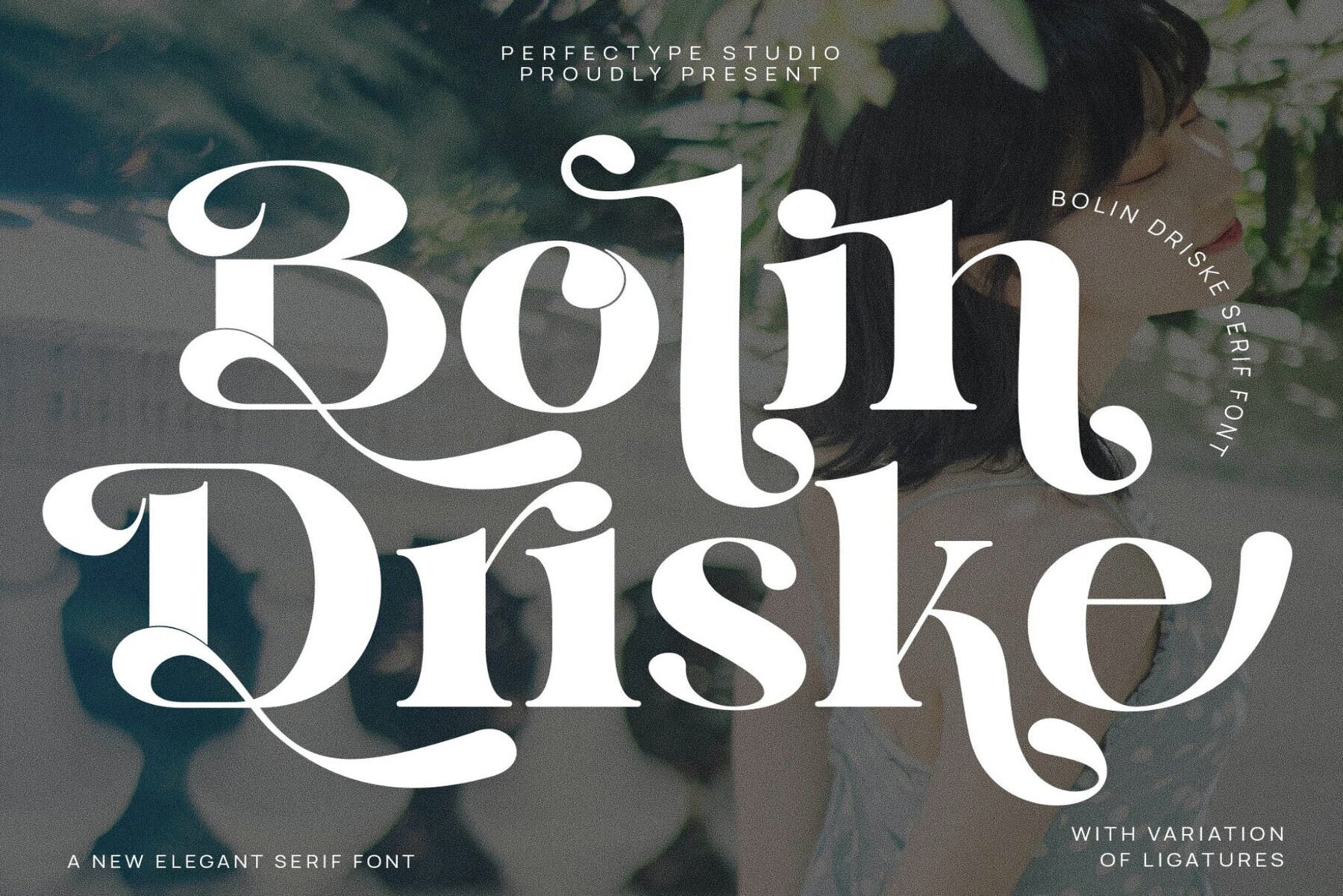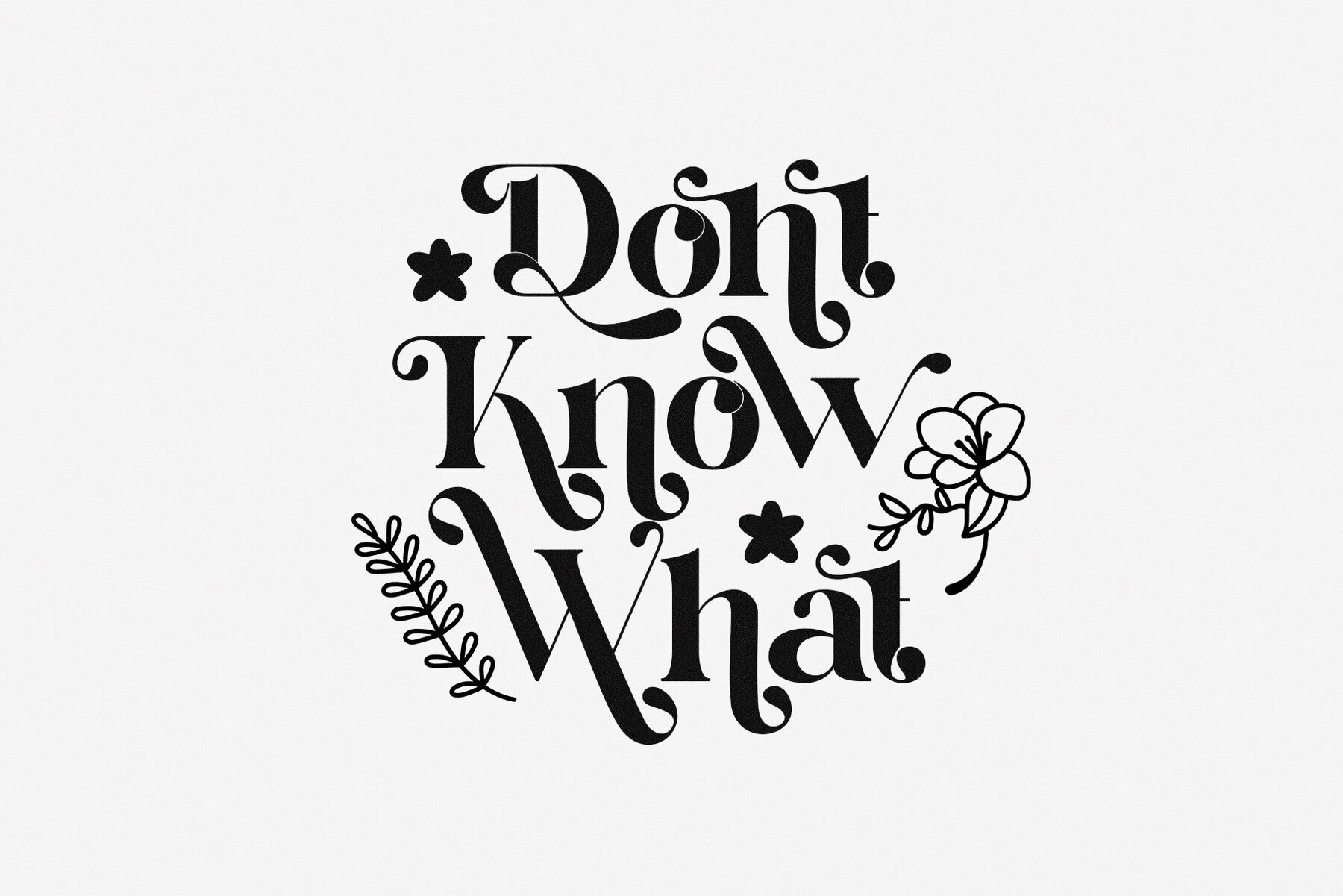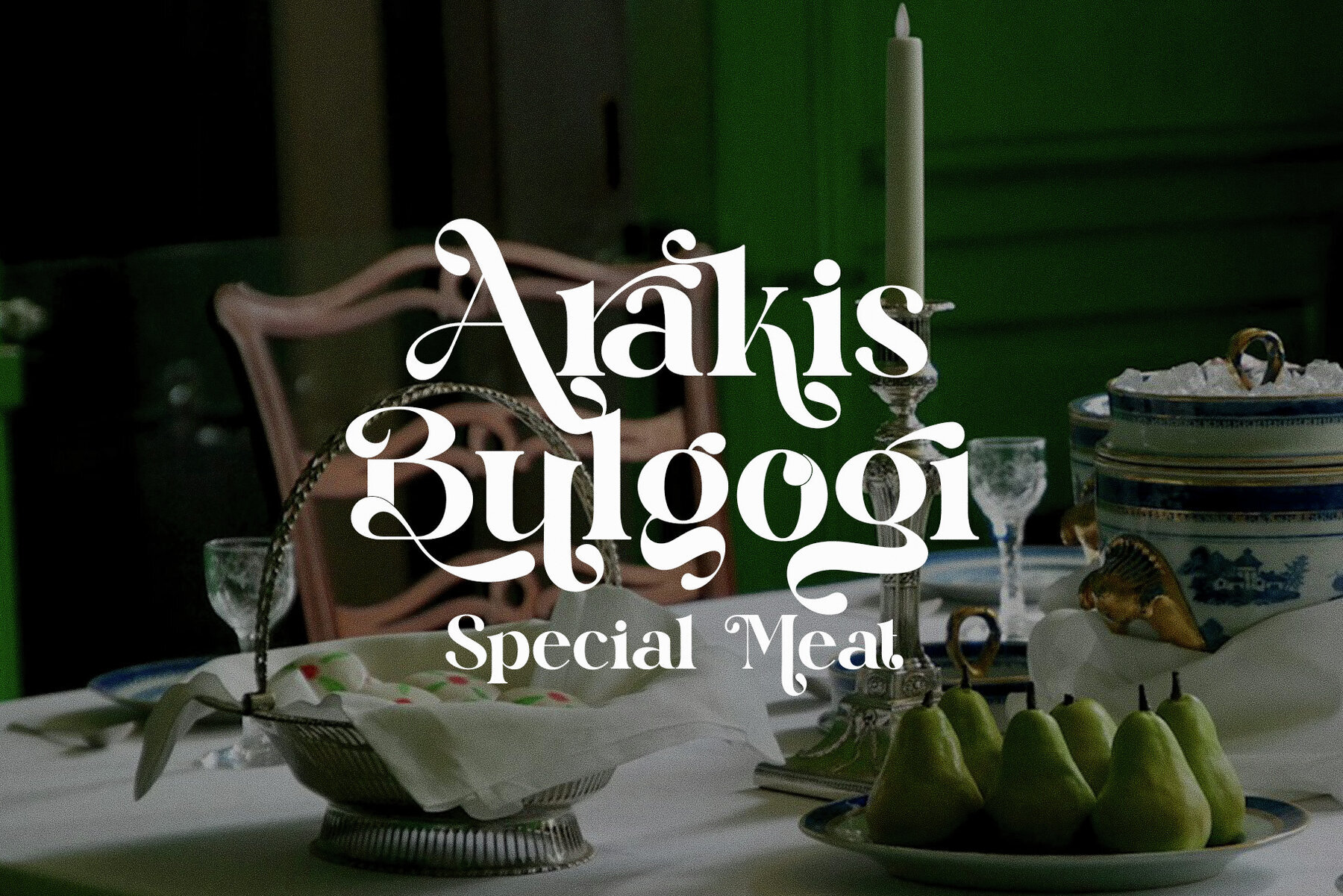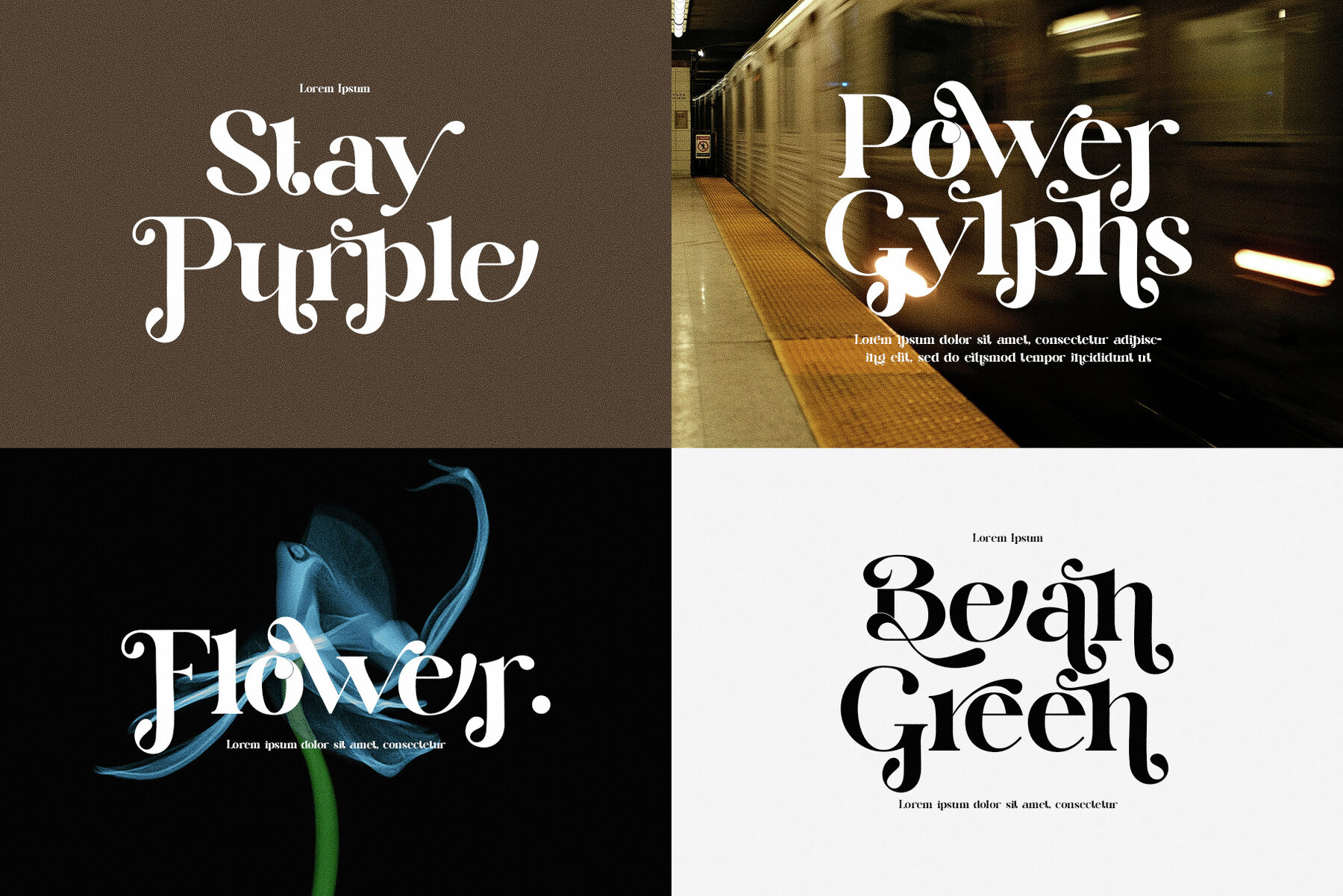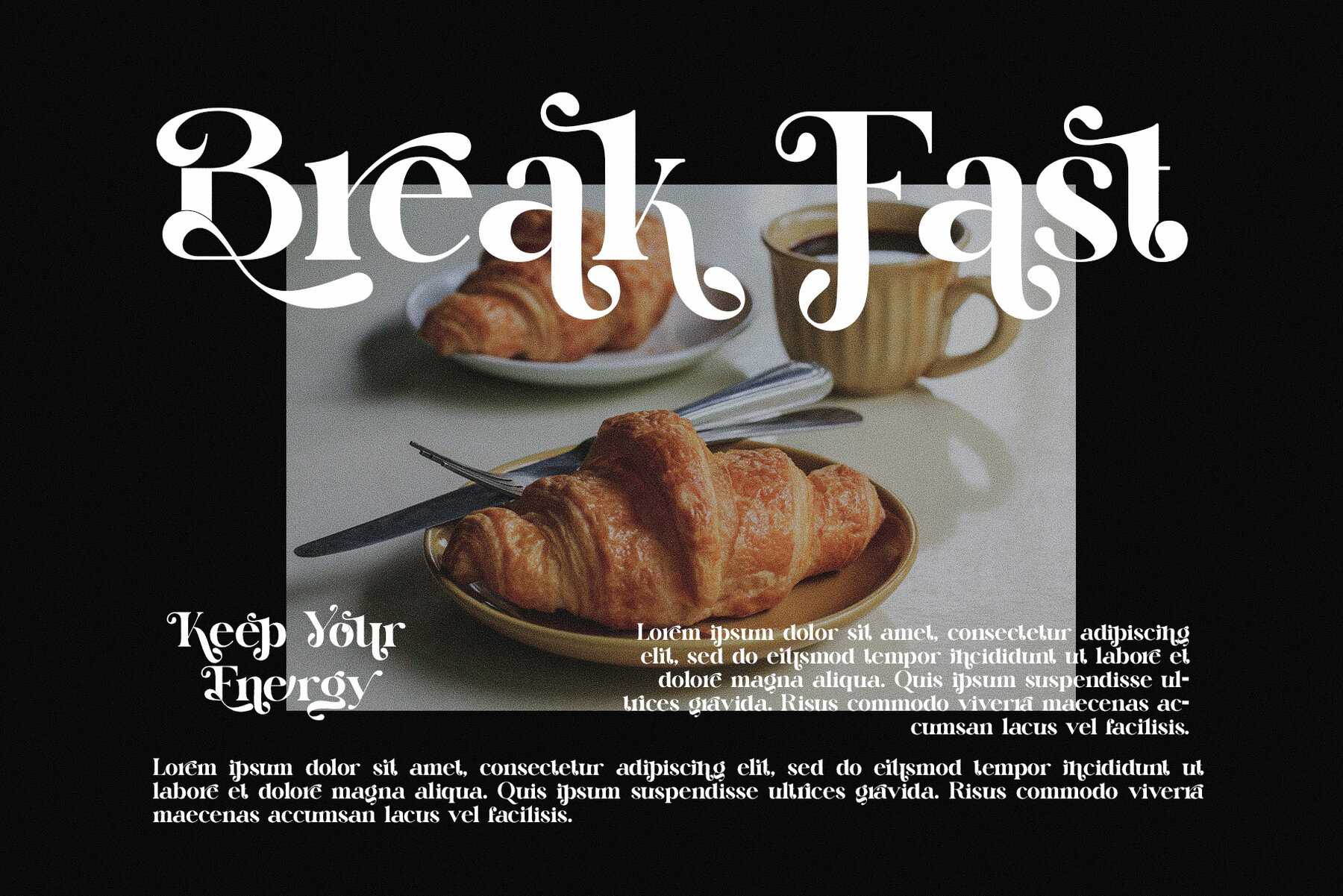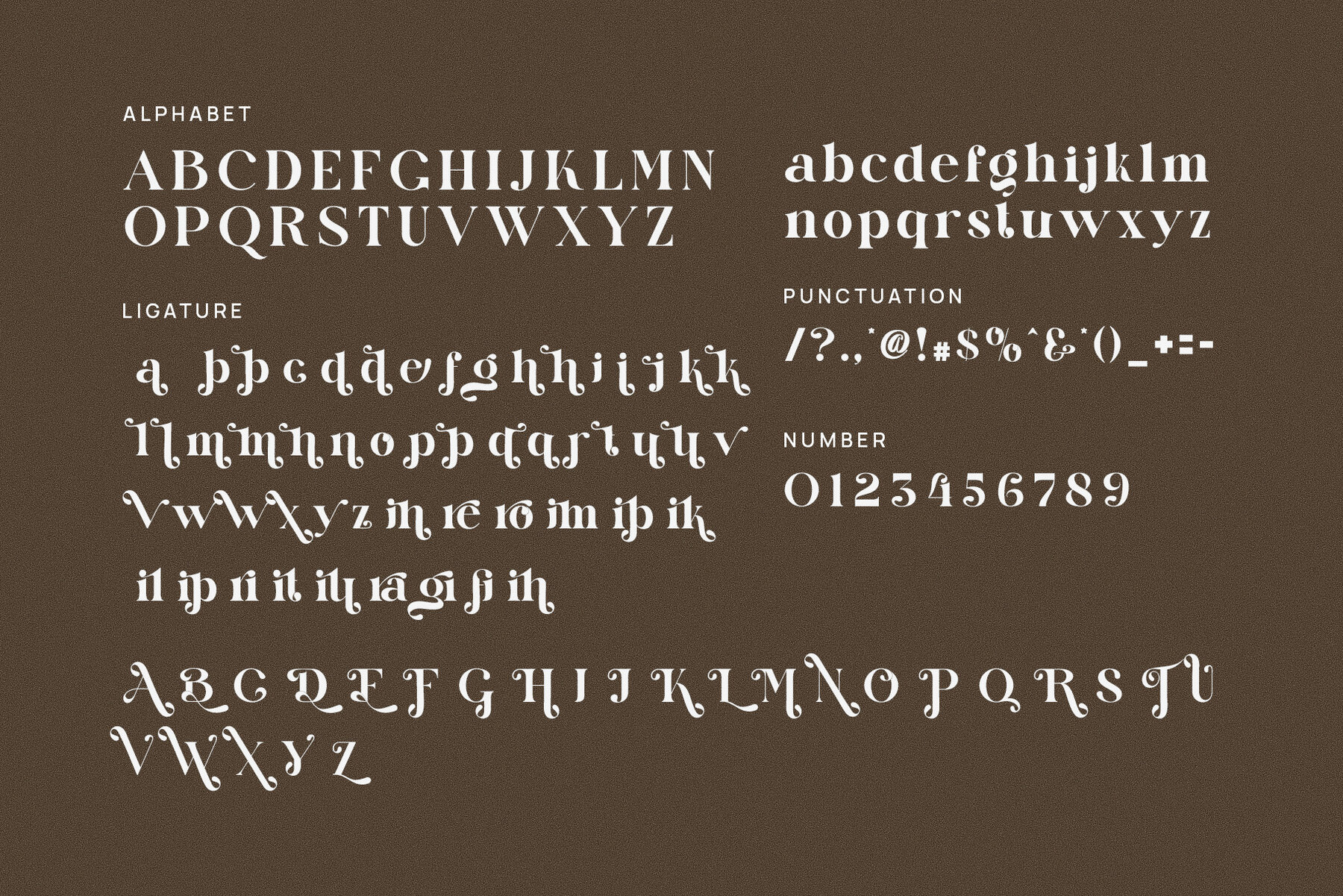
Bolin Driske Font
Bolin Driske
Bolin Driske Display Serif Font masterfully bridges the classic charm of traditional serifs with the sleek edge of contemporary design. Its bold, elegant strokes make it ideal for premium branding, luxury logos, and high-end publications, offering both allure and readability. The font's refined character set suits projects demanding a touch of sophistication, whether it's in fashion, boutique, or gourmet branding. Bolin Driske stands apart with its unique ligatures and alternates, providing creative flexibility for diverse design needs. Its compatibility across digital and print mediums makes it a seamless choice for websites, magazines, advertisements, and product packaging.Bolin Driske: A Display Serif of Timeless Sophistication
Bolin Driske's modern design, rooted in traditional aesthetics, features subtle contemporary twists that deliver a fresh appeal. Its luxurious design, paired with remarkable legibility, gives every word impact, whether in sizable headers or compact text. Whether designing for luxury publications or corporate branding, Bolin Driske forms a refined foundation, exuding class and timeless elegance.